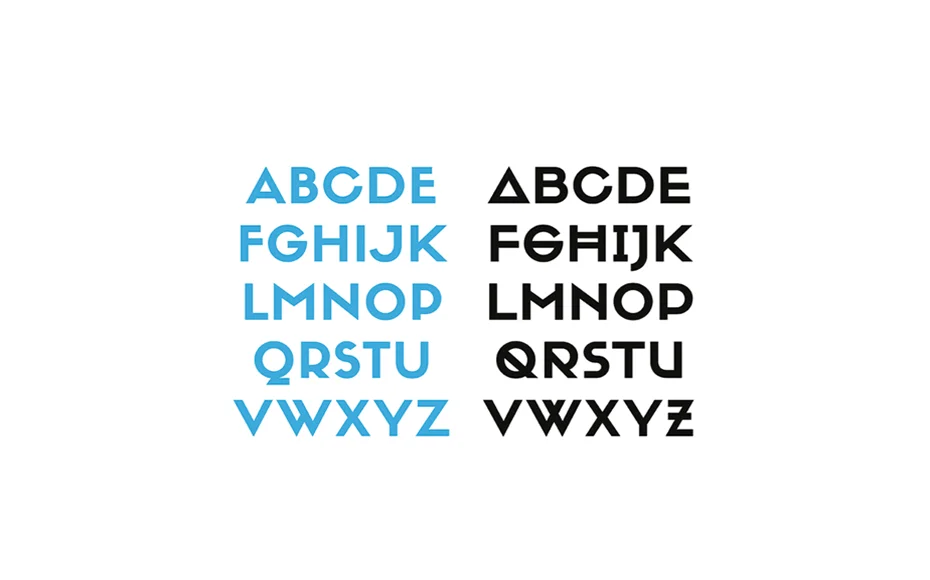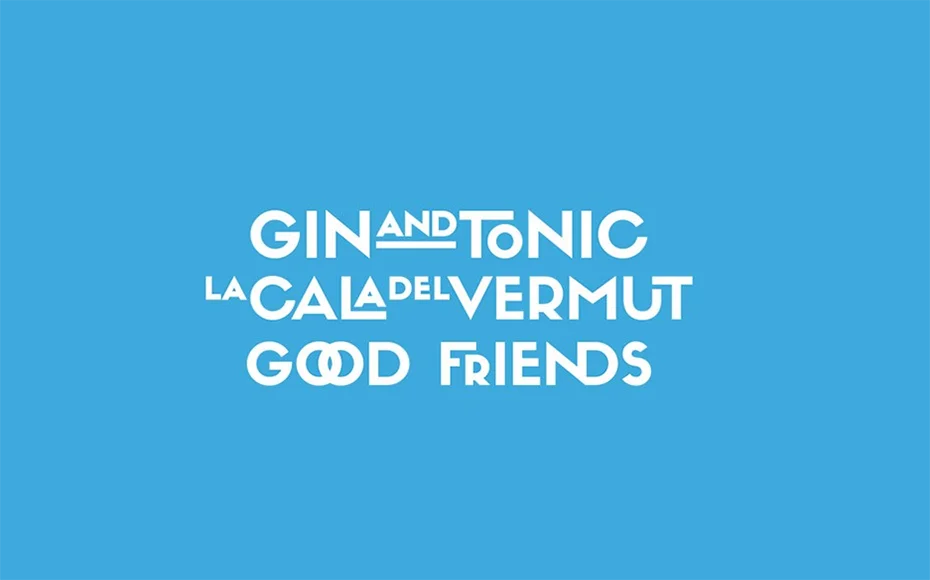
Sifonn Font is a versatile and modern-looking sans serif font family that would be ideal for a logo maker or confident branding styles.
Rafa Goicoechea is a graphic designer based in Barcelona who has taken the charge of creating it for the first time in 2013.
It has many features like an awesome look, and perfect style, and is easily controllable. Therefore, its popularity is not behind that of any other font family.
Each letter has a unique text layout as you can see in the pictures. In its coolest layout, it will help make your design even more elegant and fantastic.
Using this font will be one of your best choices ever. Because of this many famous graphic designers use it for various official purposes.
With this majestic font help, you can create movie posters, advertisements posters, book covers, special quotes, taglines, book covers, stationery, fashion magazines, emblems, as well as several other things.
This amazing font family comes only in regular style and supports 26 international languages.